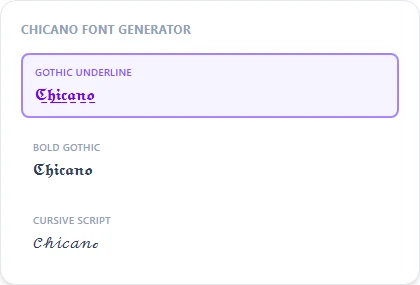
Chicano Font Generator
Chicano lettering art is a real, specific hand-lettering tradition built on fine-line script and blackletter work — no Unicode block reproduces it exactly, but Fraktur and Script get closest for a quick text preview.
Gothic Underline combines bold blackletter with a flowing underline for the closest single-style match; plain Script or Fraktur work well individually too.
Chicano Font Generator style examples: Gothic Underline, Bold Gothic, Cursive Script, rendered on the word "Chicano"
A real art tradition, not a Unicode block
Chicano lettering is a specific hand-drawn art form rooted in Mexican-American culture, built on fine-line script and blackletter work refined over decades by dedicated tattoo and mural artists. It has no direct Unicode equivalent. This generator combines the closest existing letter styles, Fraktur and Script, into a quick text preview; it isn't a substitute for the actual craft or the artists who practice it.
Using this responsibly as a starting point
Treat the output here as a rough placeholder for exploring layout and wording, not as a design to hand over as-is. For an actual tattoo or piece of art in this style, seek out an artist experienced specifically in Chicano lettering.
Is this real Chicano lettering art?
No, Chicano lettering is genuine hand-drawn artistry that a text generator can't replicate. This gives you the closest available Unicode approximation for a quick preview, not a substitute for a real lettering artist.
Can I use this as a tattoo reference?
As a rough starting reference only — bring it to a tattoo artist experienced in fine-line lettering rather than treating it as a final design.
What's the closest single style to this look?
Gothic Underline, which pairs bold blackletter with a flowing underline in one step.
Where can I learn more about the real Chicano lettering tradition?
Look for dedicated tattoo and lettering artists and archives that specialize in Chicano art — this generator is only a rough text preview, not an educational resource on the craft.